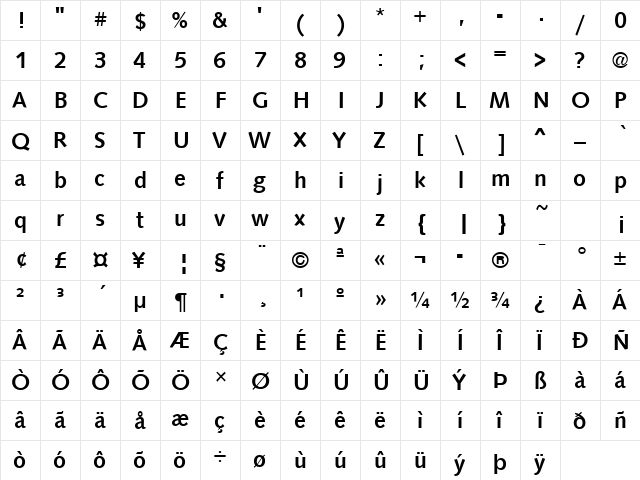
Syntax Bold Font Preview
Syntax Bold
Syntax Bold Font Details
Design Context for Syntax Typeface
Syntax offers clean, dependable letterforms without strong stylistic allegiance, making it a practical choice for designers who need flexibility. The heavy weight commands attention and anchors typographic hierarchies.